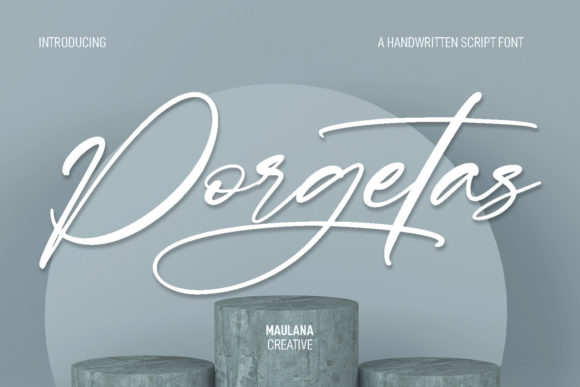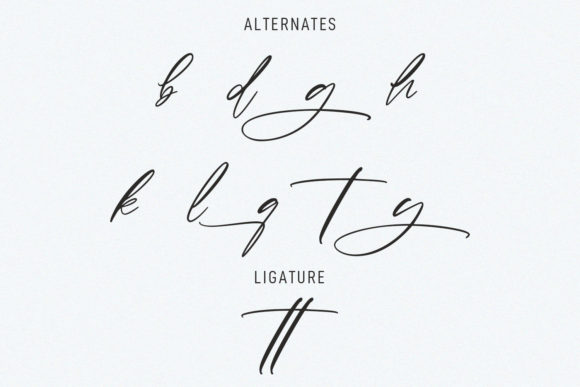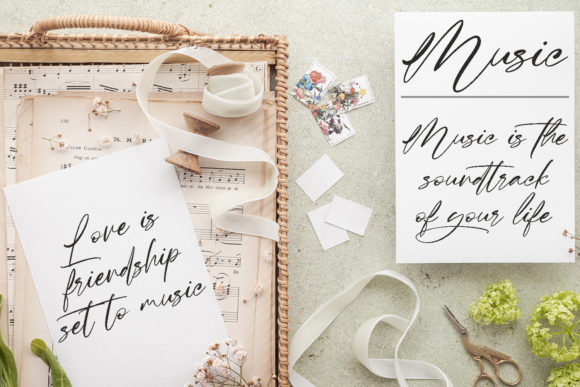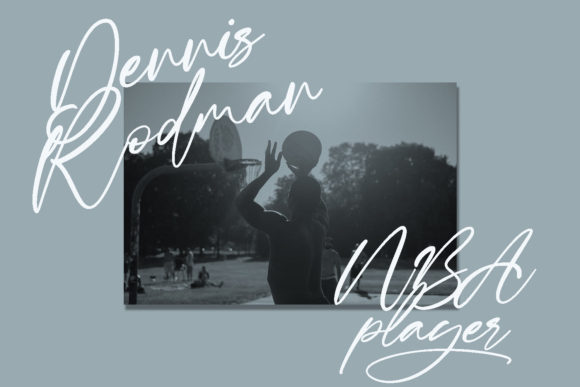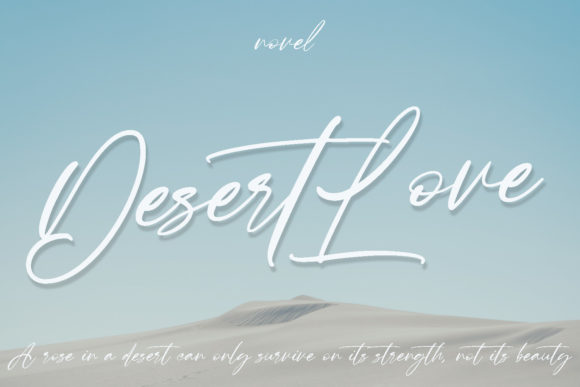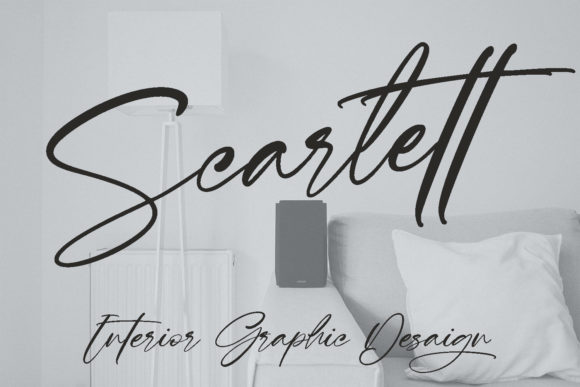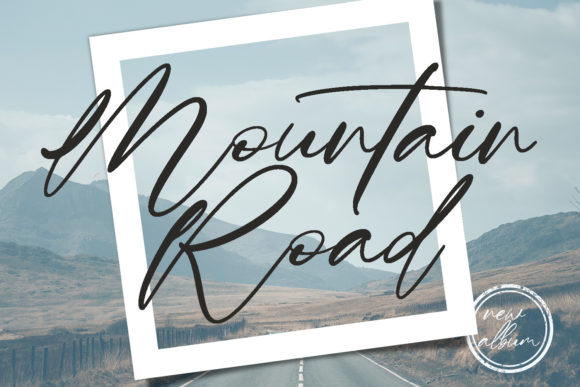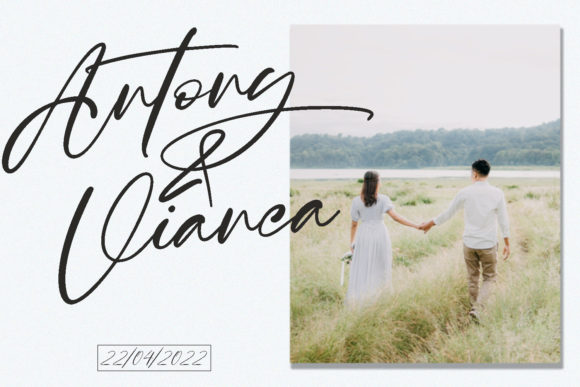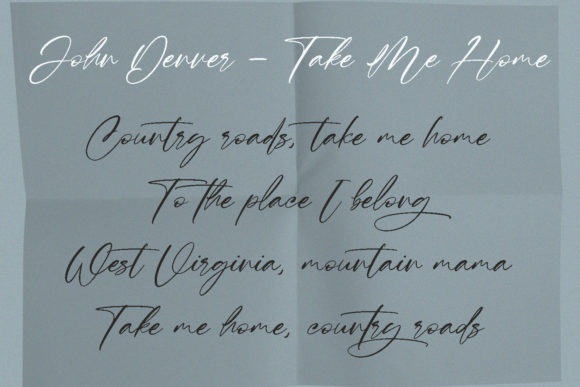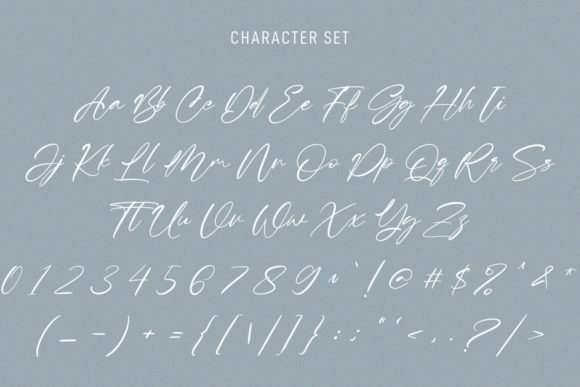
Porgetas Font
About Porgetas Font
**Porgetas** is introduced as an ink-is signature script font, characterized by its light strokes, playful characters, and additional ligatures and alternates to enhance your creative work. This versatile font is well-suited for various applications, making it an excellent choice for logo design, social media, movie titles, book titles, and as a secondary text font when paired with sans or serif fonts. Use Porgetas to create stunning and dynamic designs.
The uniqueness of Porgetas lies in its signature script style, which adds a personal and handcrafted touch to your text. The light strokes contribute to a playful and friendly demeanor, making it a suitable choice for projects that require a balance of creativity and approachability.
In logo design, Porgetas becomes a distinctive element that sets your brand apart. The signature script font adds a touch of personality and flair, making it suitable for a variety of industries, from fashion to lifestyle. The ligatures and alternates provide additional creative possibilities, allowing you to customize and refine your logo.
For social media, where visual impact is crucial, Porgetas shines. Whether used in posts, captions, or stories, this font introduces a dynamic and energetic vibe that captures attention and enhances engagement. Its versatility makes it adaptable to various social media content, from casual to promotional.
In movie titles, Porgetas brings a sense of drama and creativity. The script font adds a cinematic touch, creating titles that are visually captivating and memorable. The ligatures and alternates offer flexibility, allowing you to experiment with different letter combinations for a unique and customized look.
For book titles, Porgetas provides a playful yet elegant choice. Its signature script style adds a touch of personality to the cover, setting the tone for the content within. The font’s versatility makes it suitable for various genres, from fiction to lifestyle books.
As a secondary text font paired with sans or serif fonts, Porgetas complements the overall design by introducing a handwritten and artistic element. The combination of styles creates a visually appealing and well-balanced layout.
In essence, Porgetas goes beyond being just a font; it becomes a design tool that empowers you to create stunning and dynamic works. Whether used for logo design, social media, movie titles, book titles, or as a secondary text font, Porgetas stands ready to elevate your designs with its ink-is signature script style and creative possibilities. Embrace the uniqueness of Porgetas and unleash your creativity in every project.